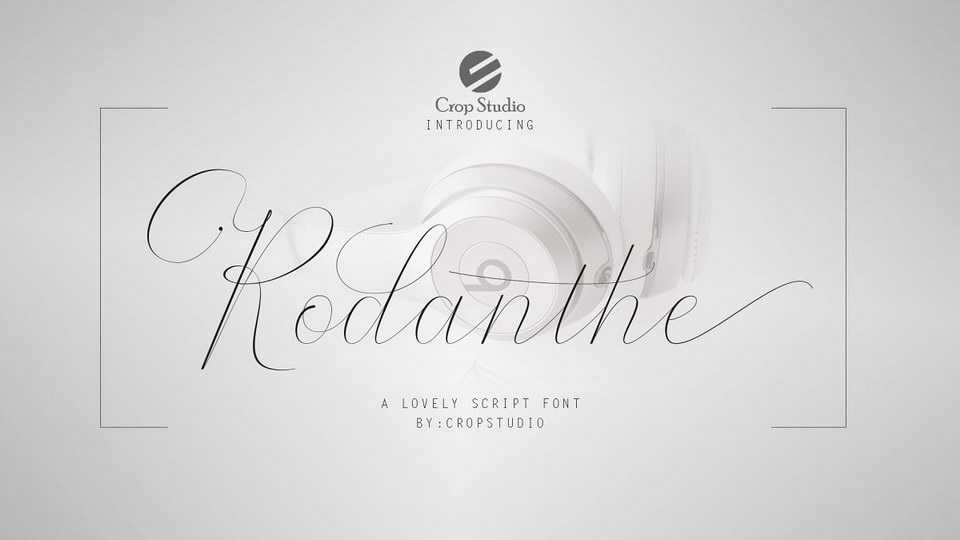
Download Rodanthe font, a gorgeous elegant script designed in a modern style with beautiful and pleasing to the eye look. Rodanthe is very well suited for brands, t-shirts, packaging brands, greeting cards, invitation cards, etc.